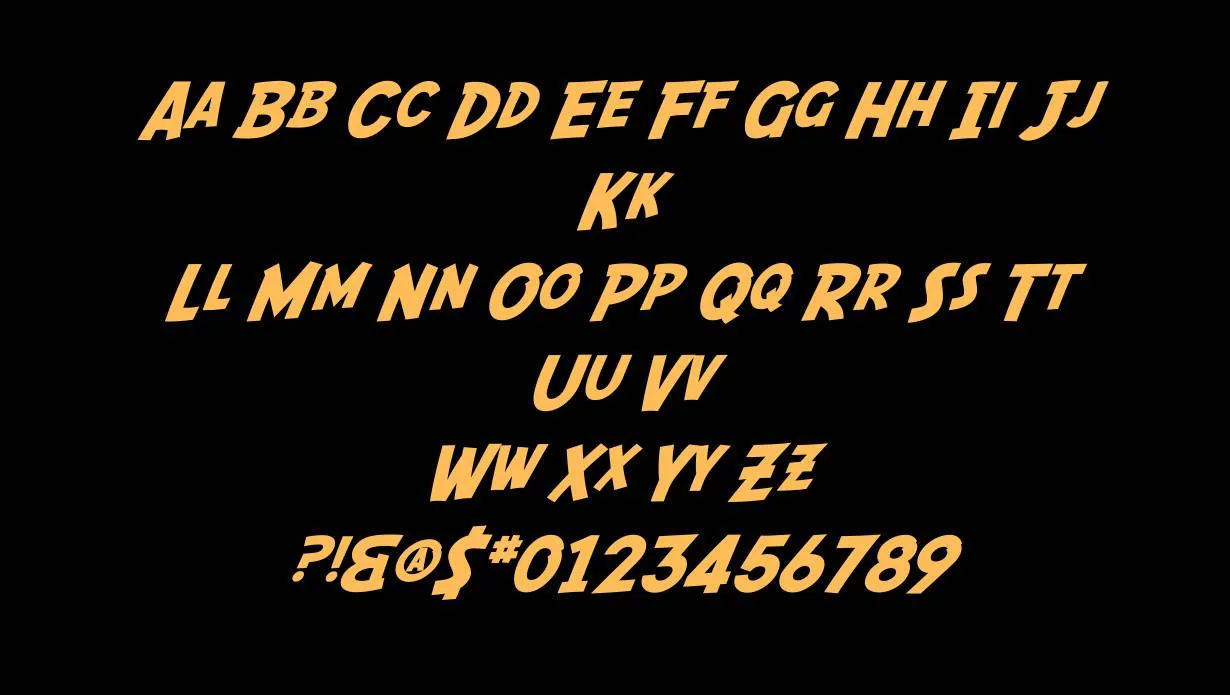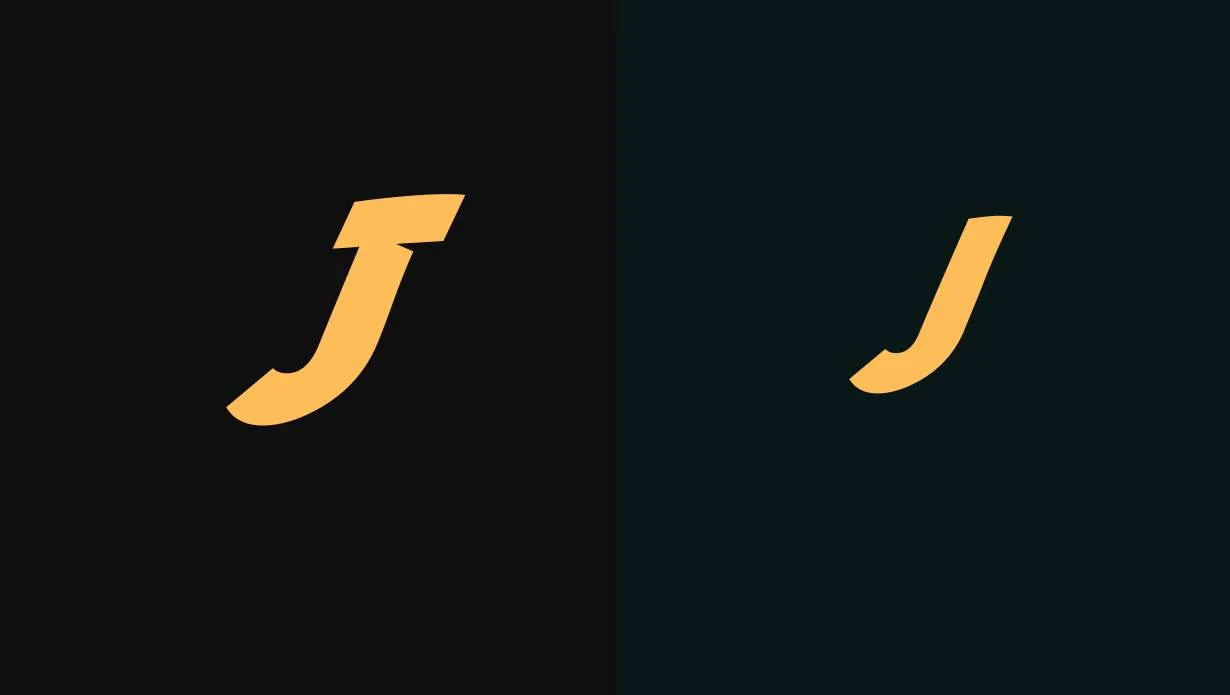
Jojo Font is a quirky and fun typeface with unique characters. It adds a playful touch to any project. This font is designed by DeFharo. It is a display font.
This font is Ideal for children’s books, creative advertisements, and projects that require a whimsical font.